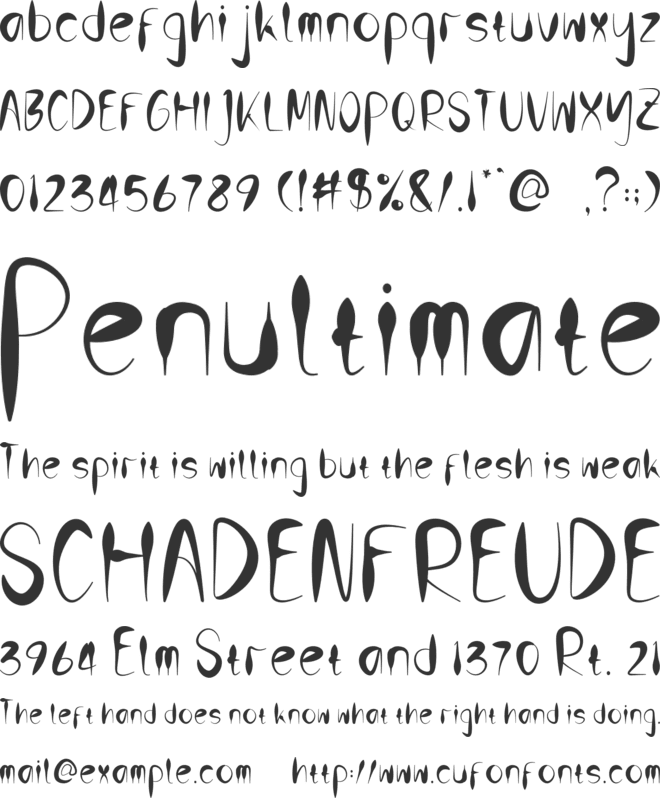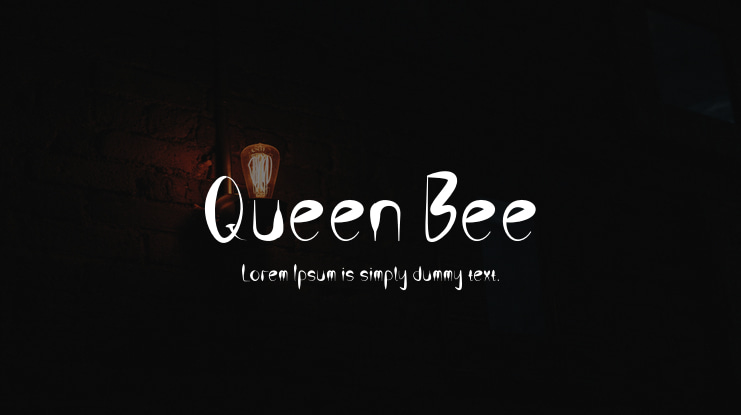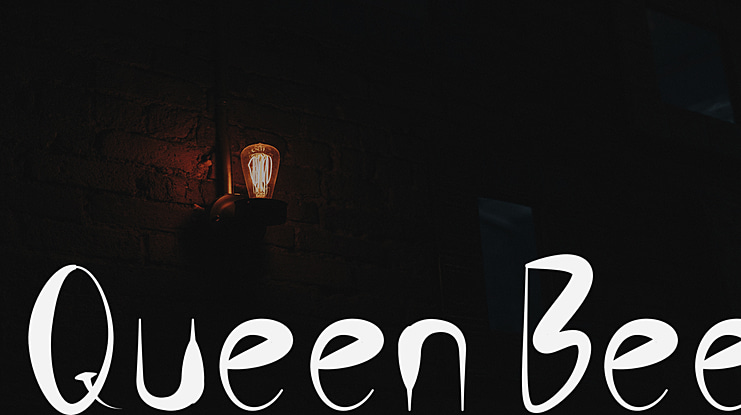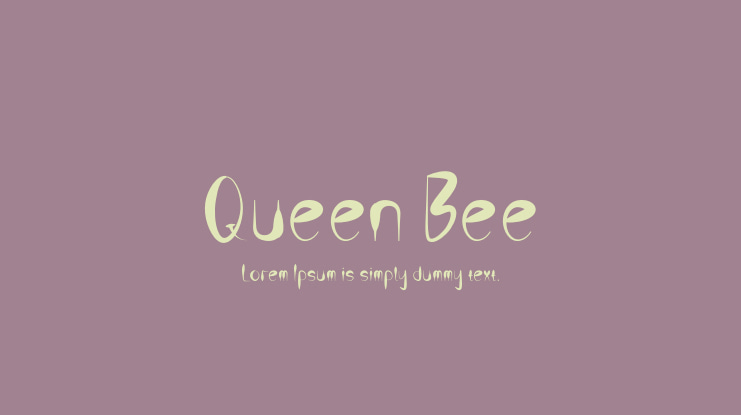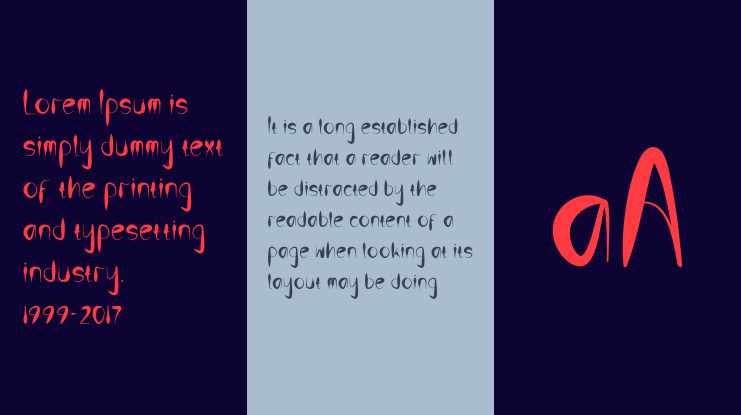
Queen Bee Font
Muhammad Nashrul Aziz
Queen Bee is an incredibly quirky and sweet display font. Whether you use it for cartoon related designs, children games or just any creation that requires a lovely touch, this font will be an amazing choice.